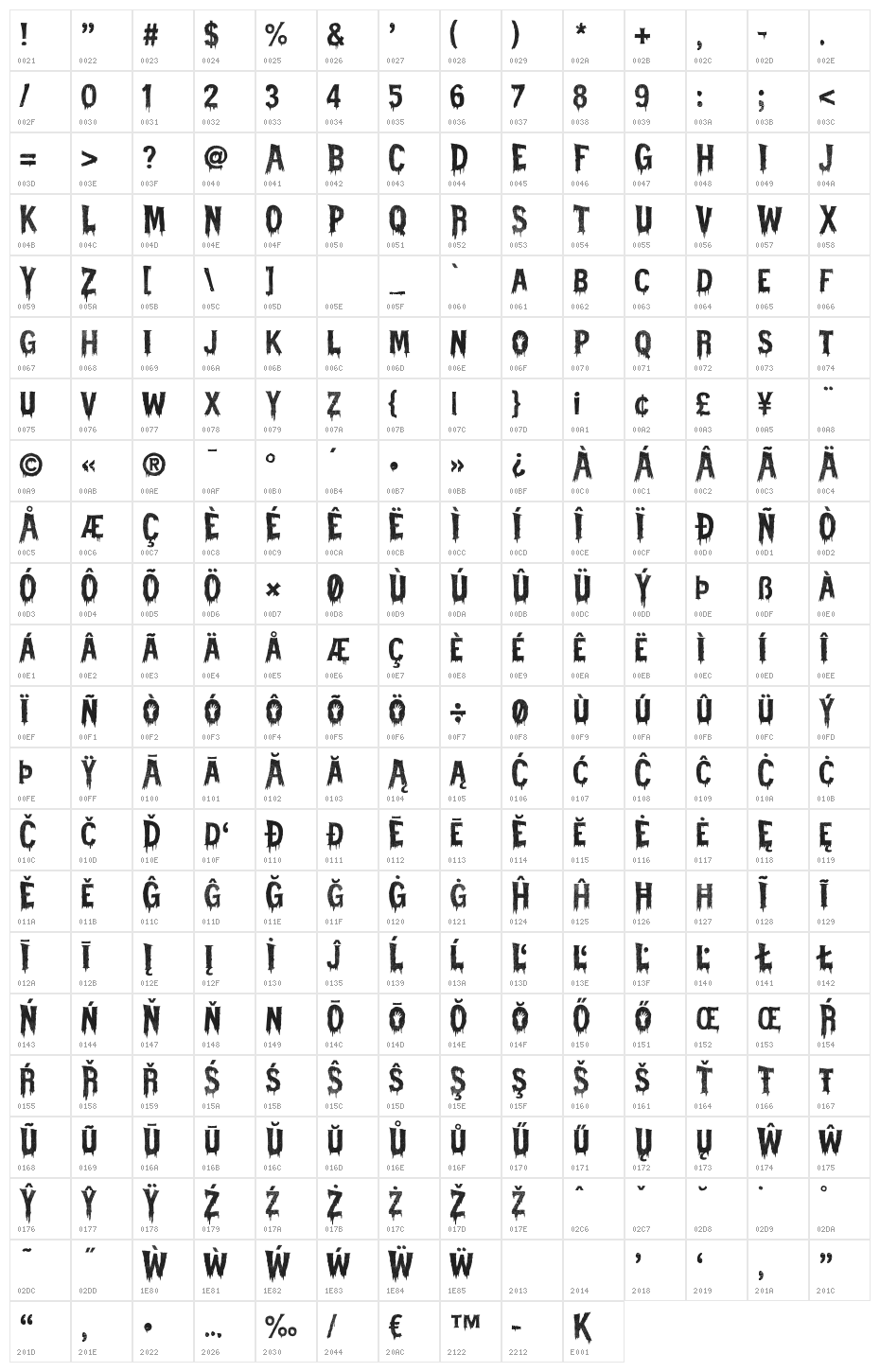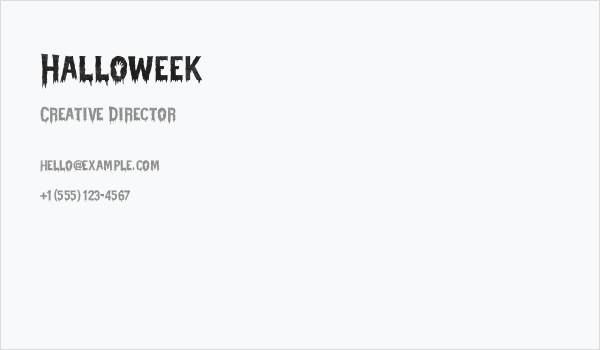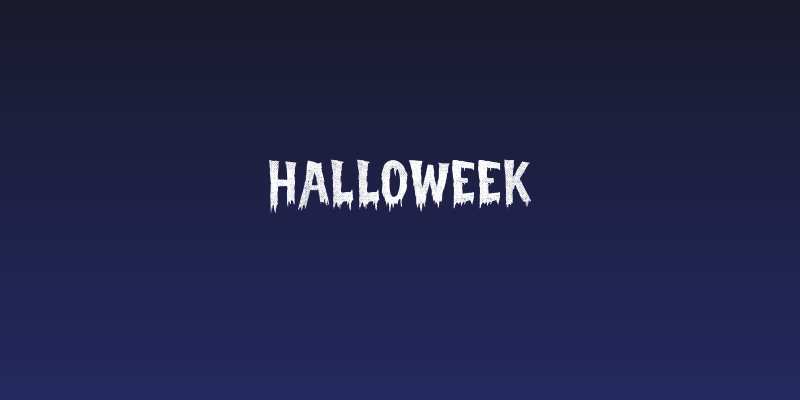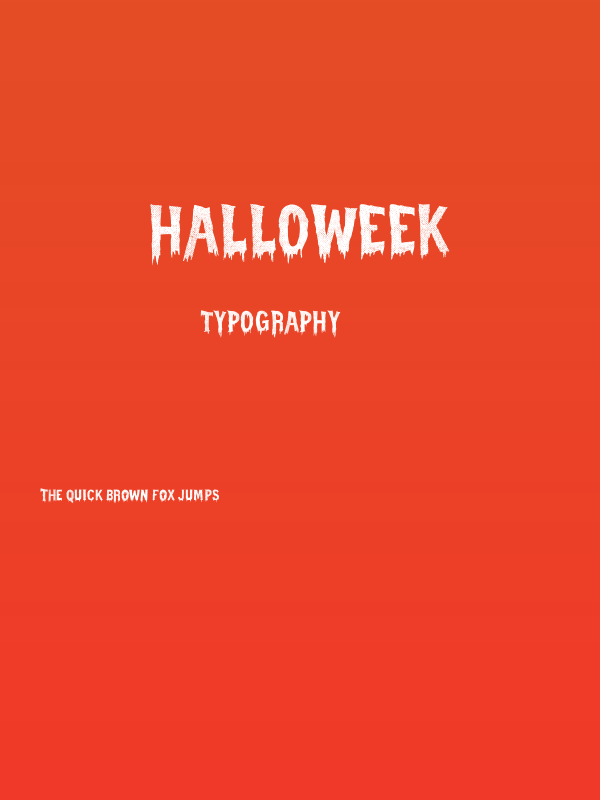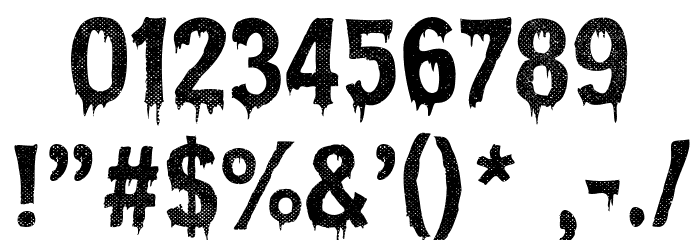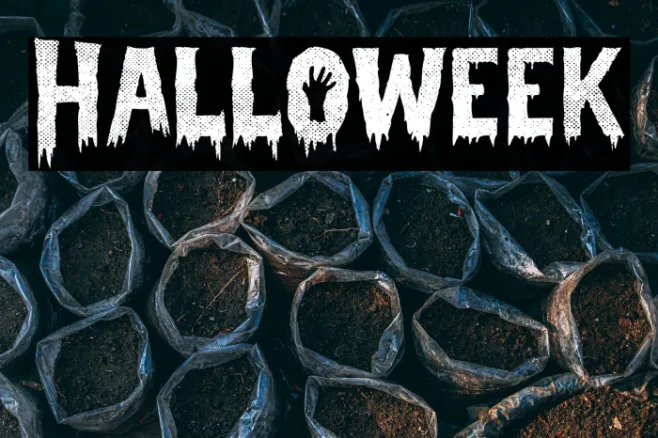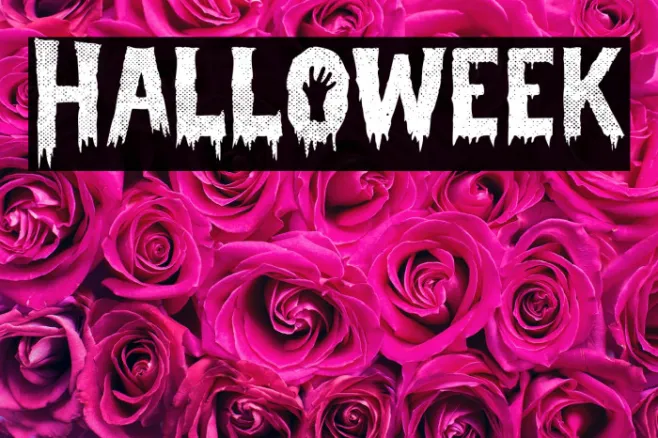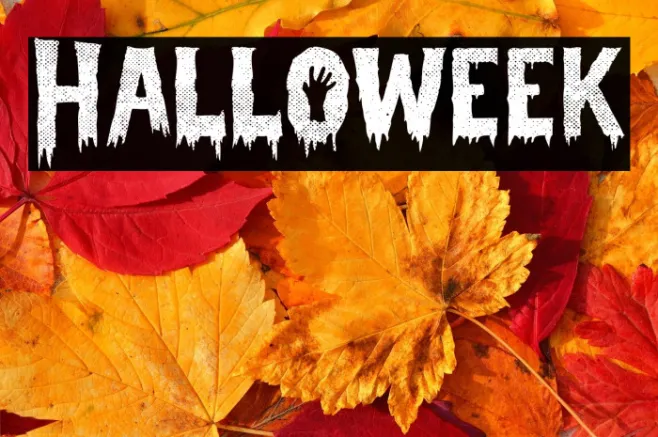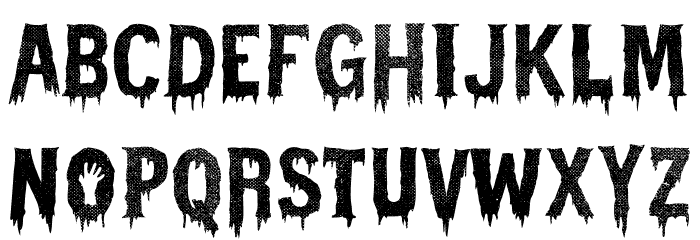
Halloweek Font
Halloweek Description
This font features a spooky, dripping design that evokes a sense of horror and mystery, perfect for Halloween-themed projects. The uppercase and lowercase letters are bold and jagged, with a unique texture that resembles dripping paint or slime. The numbers and special characters maintain this eerie aesthetic, making them ideal for creating eye-catching titles or logos. The overall style is decorative and thematic, capturing the essence of a haunted or supernatural theme. The font's distinct appearance makes it suitable for seasonal events, parties, and themed merchandise.
| Proposed Projects | Ideal for Halloween invitations, horror movie posters, themed merchandise, and party decorations. |